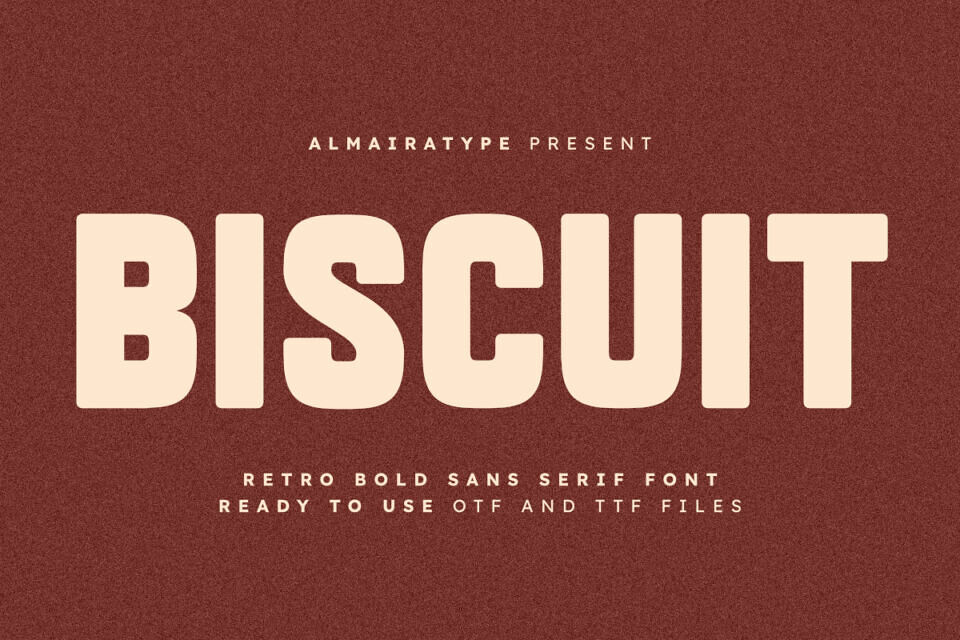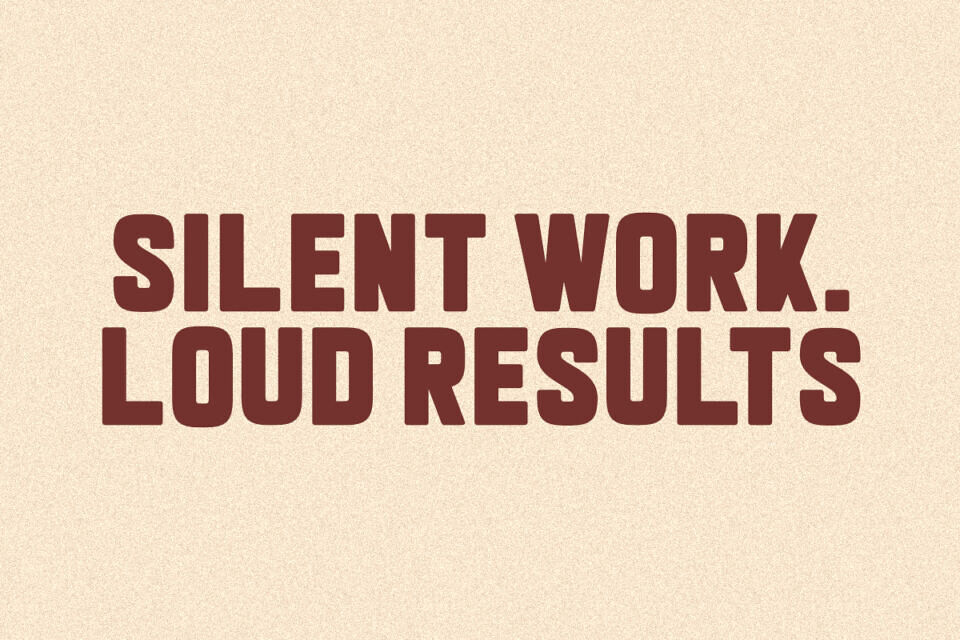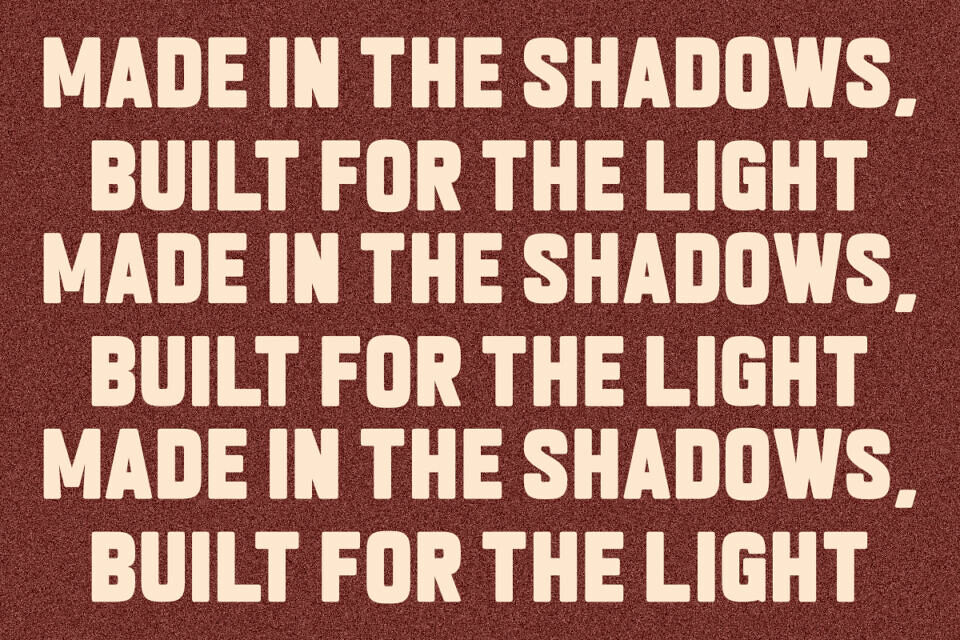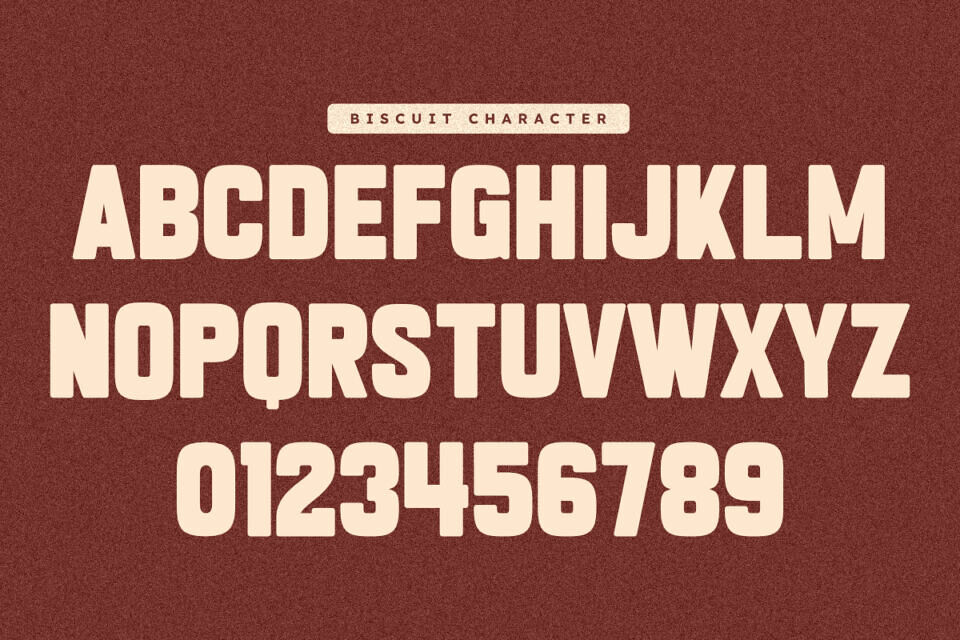
Biscuit is a bold and charming retro sans serif font meticulously crafted to bring a warm vintage aesthetic to your modern creative designs. Featuring a solid weight, well-balanced geometry, and friendly smooth curves, this typeface perfectly captures the nostalgic essence of classic 70s and 80s typography while maintaining a clean, professional finish.
Whether you are developing playful packaging, creating stylish lifestyle apparel t-shirts, designing bold stickers, or producing striking social media graphics, Biscuit ensures outstanding readability and a distinct professional edge.